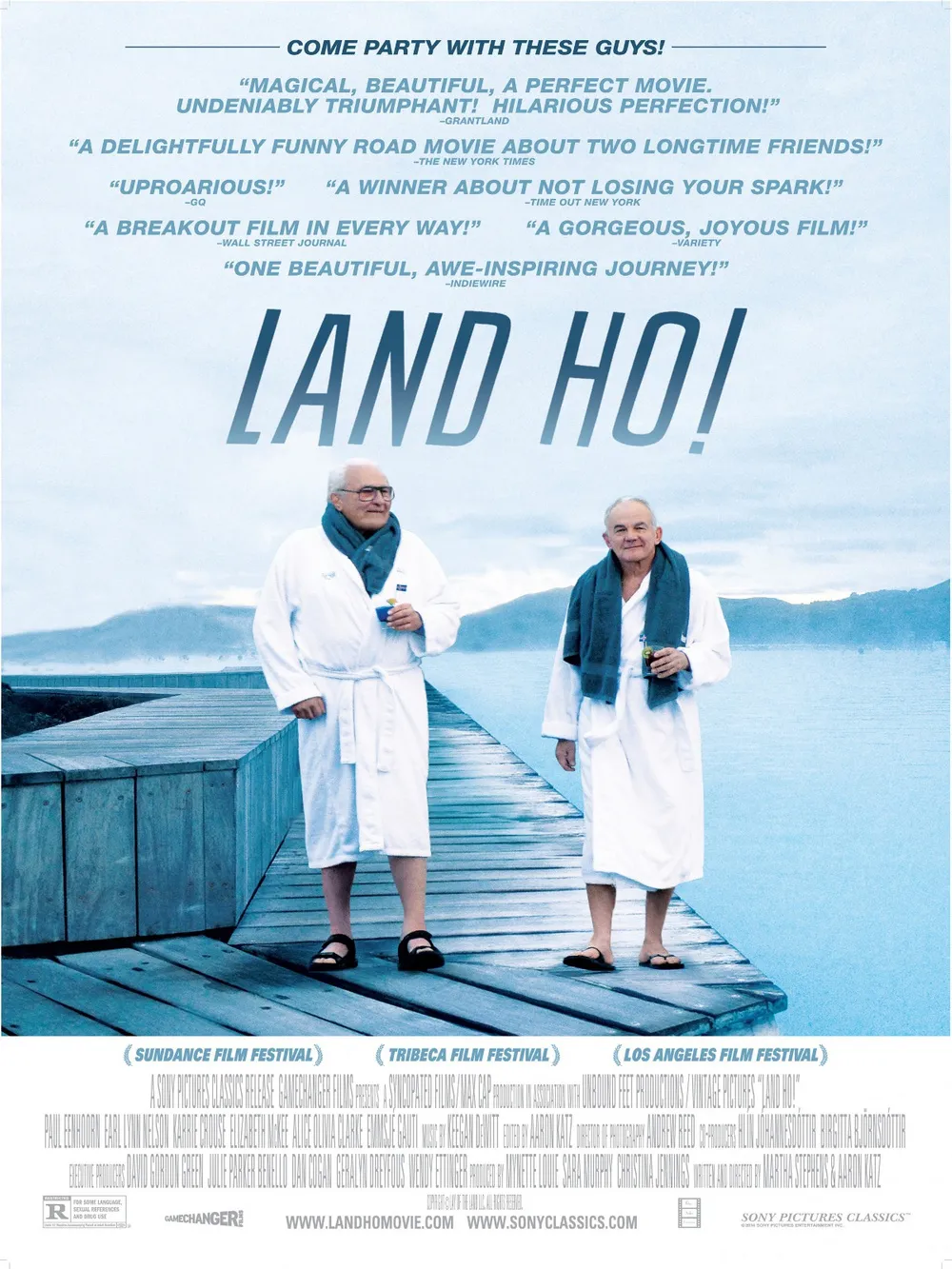
Fonts in Use: Sheldon
Land Ho
Sheldon font, in a slanted mood.
Festival poster for LAND HO! (written and directed by Martha Stephens & Aaron Katz, USA, 2014)
Designer: Marc Ripper